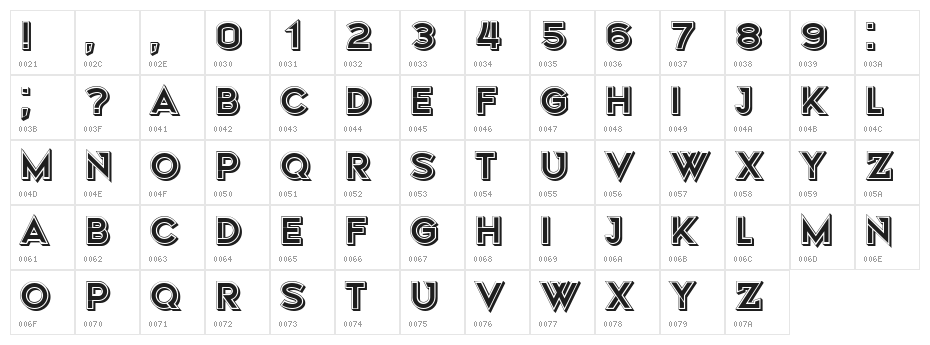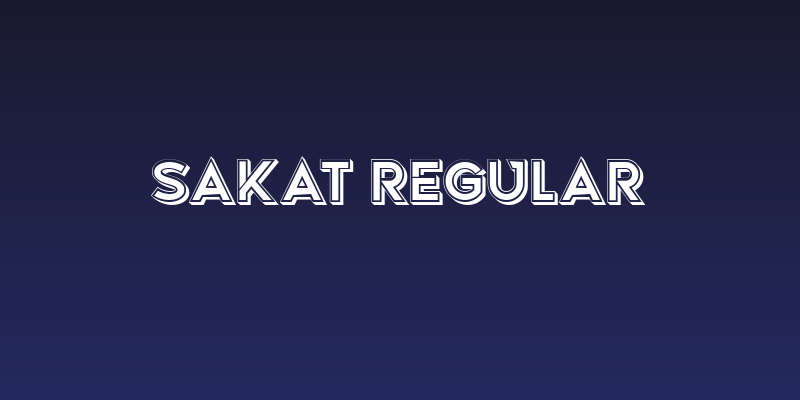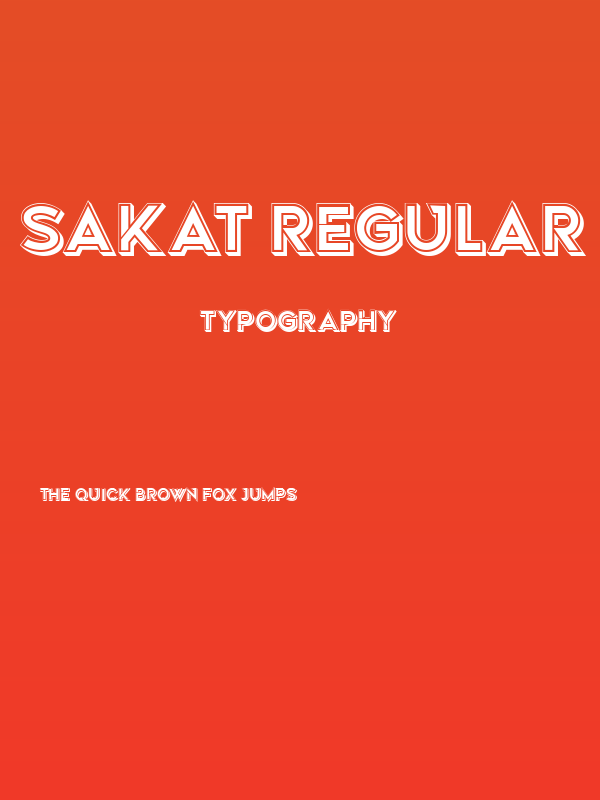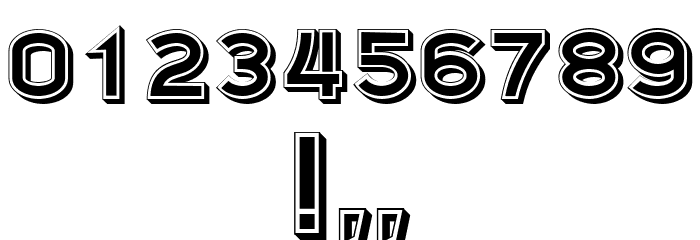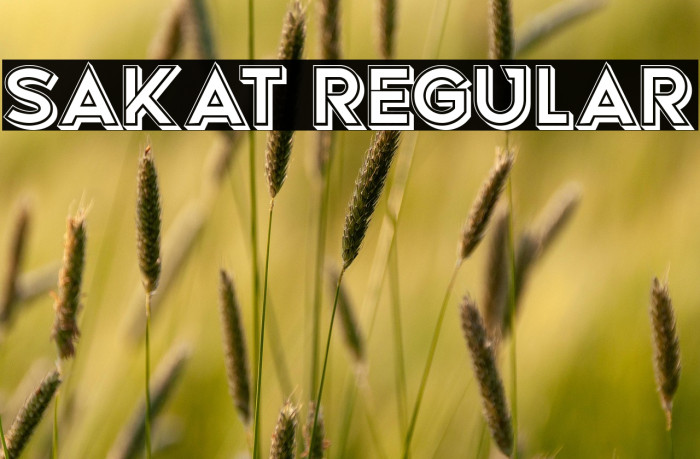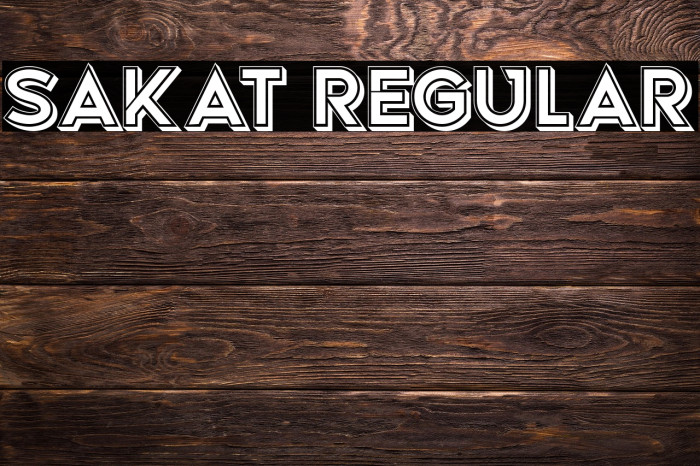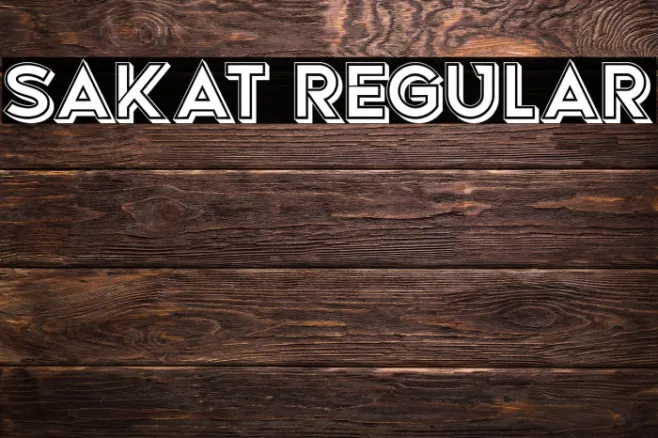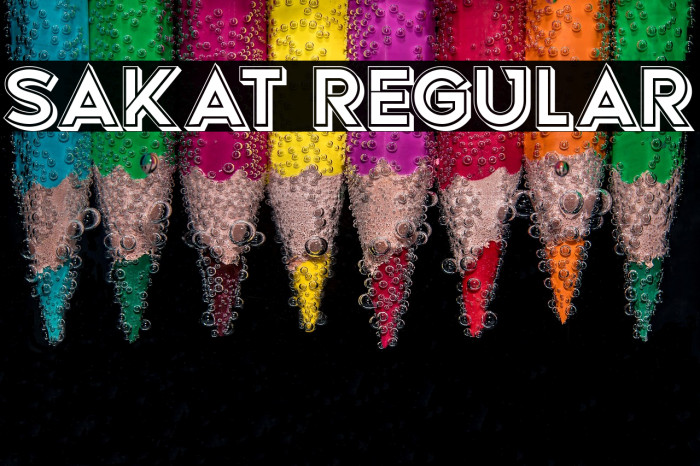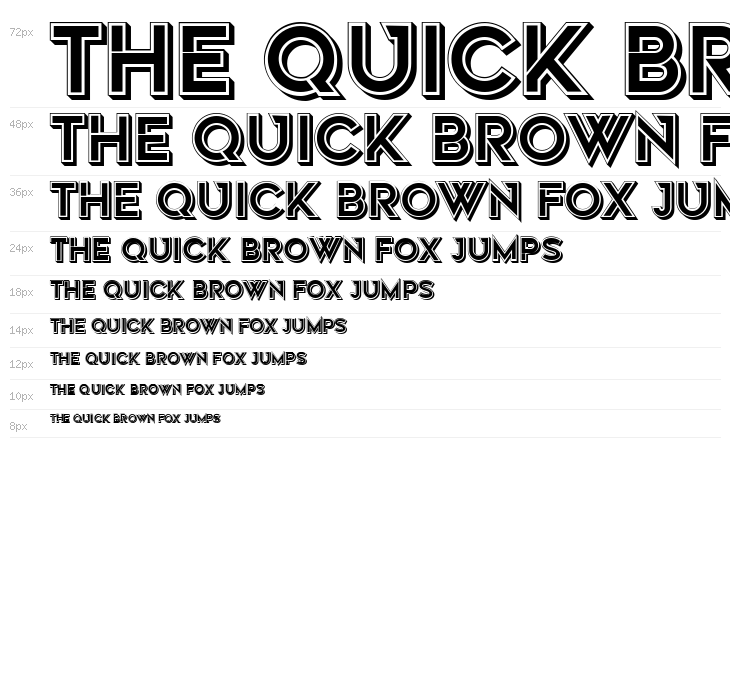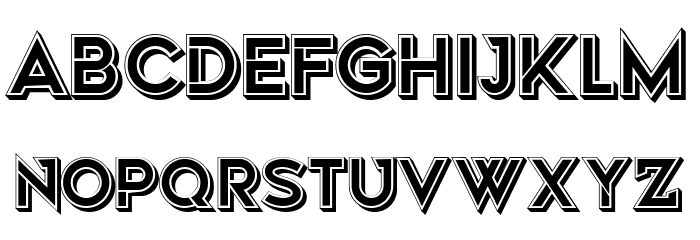
Sakat Regular Font
Sakat Regular Description
This font features a bold, geometric design with a strong emphasis on angular lines and sharp edges. The characters are outlined, creating a striking contrast between the solid interior and the defined borders. The uppercase letters exhibit a consistent height and width, contributing to a uniform appearance. The numerals are equally bold, maintaining the same stylistic elements as the letters. Special characters are designed with the same attention to detail, ensuring cohesion across all elements. The overall look is modern and dynamic, making it suitable for eye-catching designs.